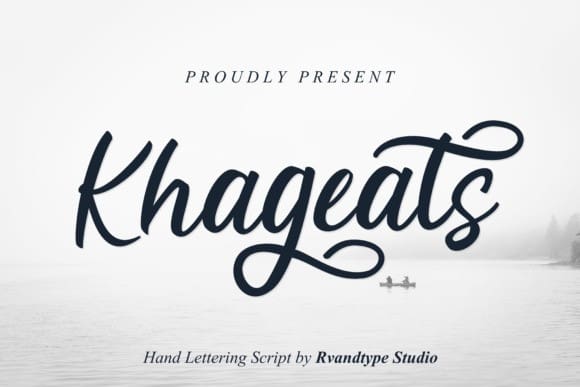
Khageats Calligraphy Font
Khageats Calligraphy Font is a calligraphic manuscript typeface, modern, dynamic and pretty with swashes. This typeface is designed and shared by Rvandtype.
It’s a fabulous script that will turn any design project into a true standout. Get inspired by its authentic and unique charm. It can be used for many purposes. such as titles, signatures, logos, wedding invitations, letterhead, signages, labels, newsletters, posters, badges, etc.